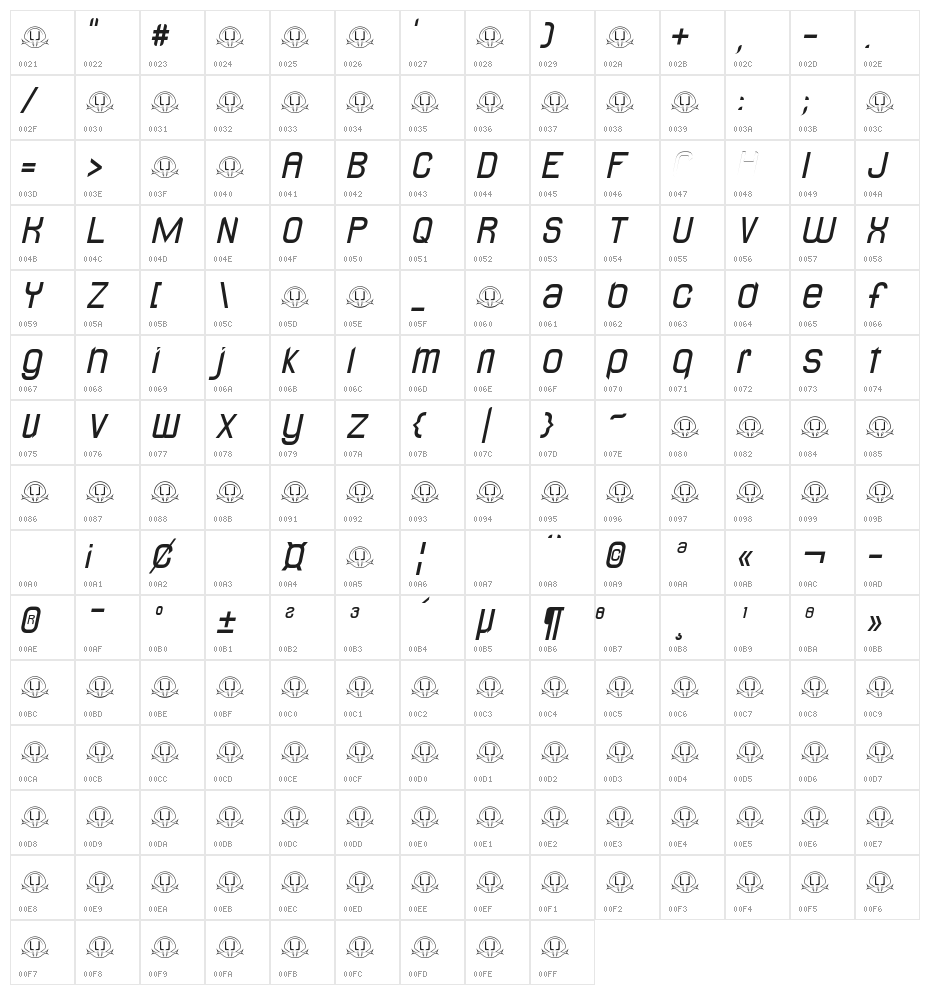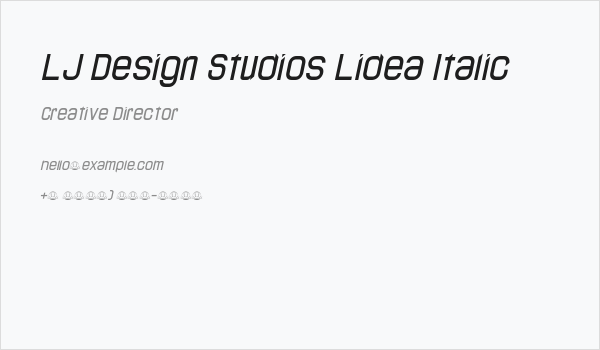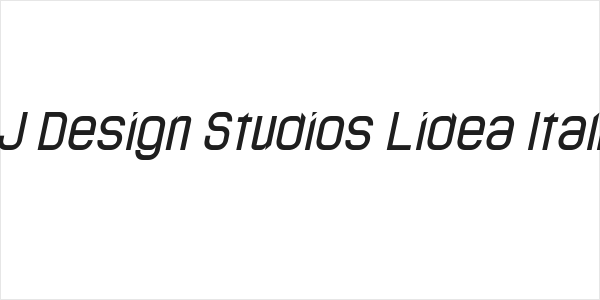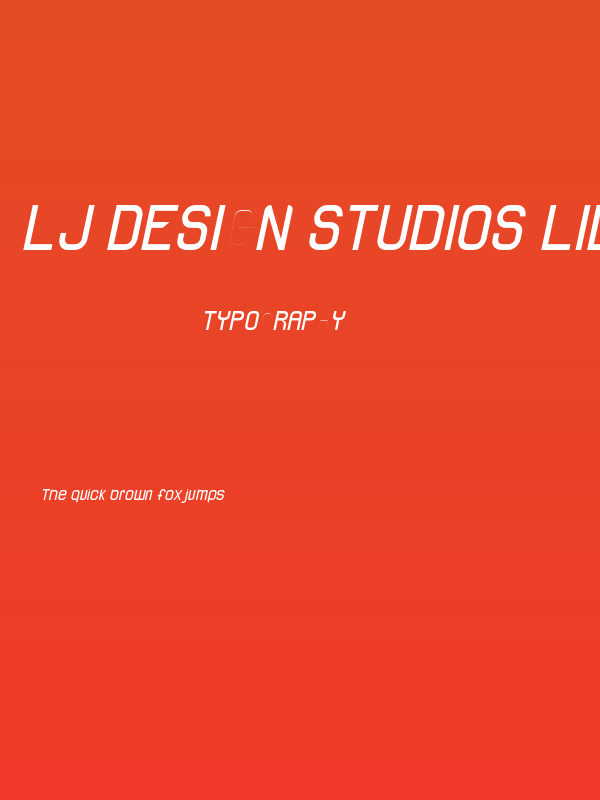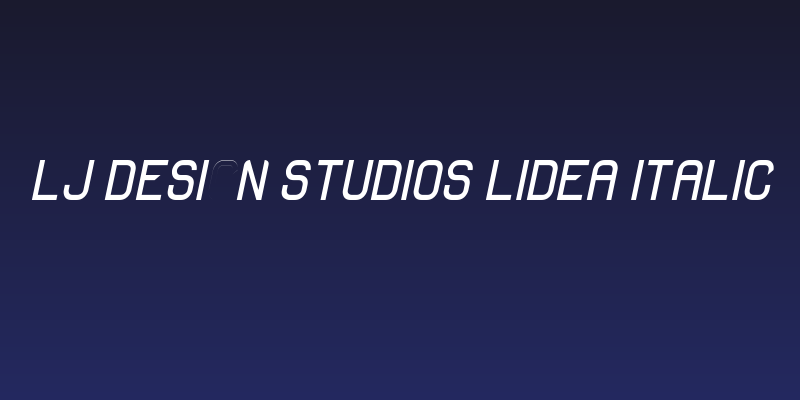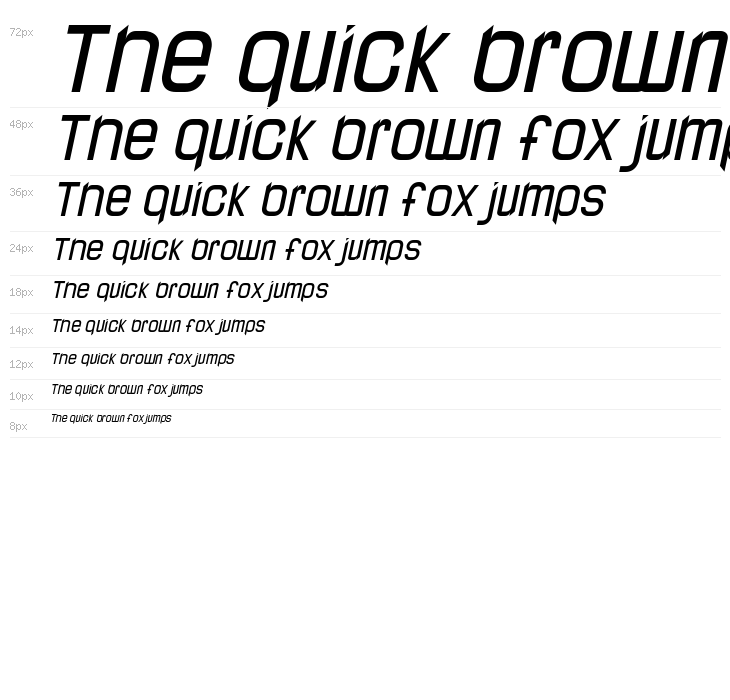
LJ Design Studios Lidea Italic Font
This font features a sleek, italicized design with a modern and futuristic aesthetic. The characters are slightly condensed, giving a streamlined appearance. The strokes are consistent in weight, providing a uniform look across all letters. The uppercase and lowercase letters maintain a cohesive style, with subtle curves and sharp angles that add a dynamic feel. The numerals and special characters are designed to match the overall style, ensuring versatility in various applications. This font's clean lines and contemporary flair make it suitable for a wide range of design projects.
Use CaseHeadlines, Logos, Branding
Proposed ProjectsIdeal for branding, technology-related projects, modern advertising, and editorial design.